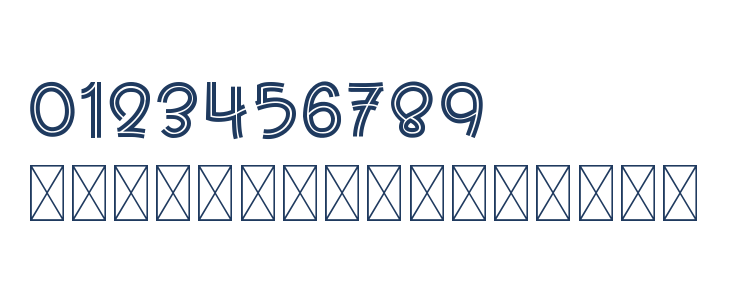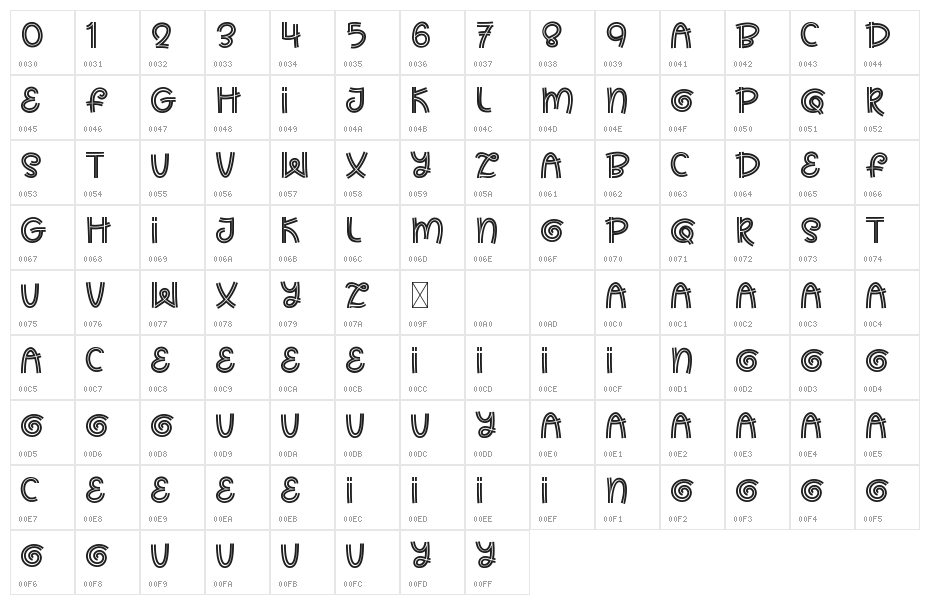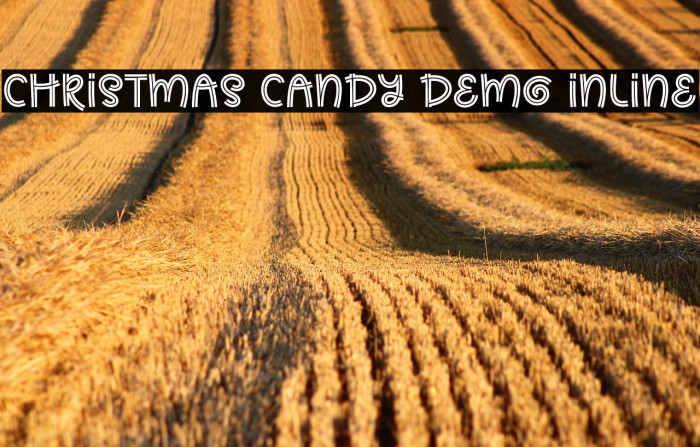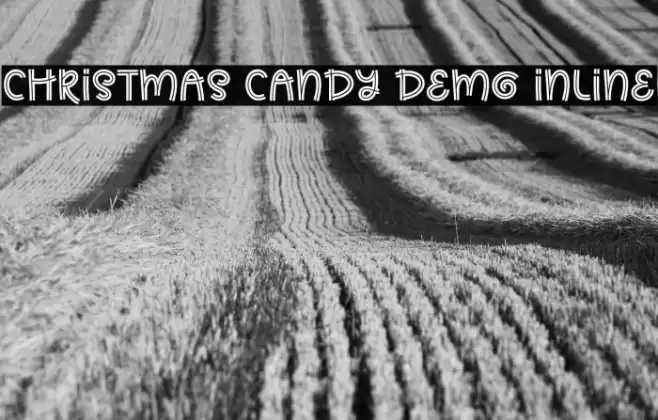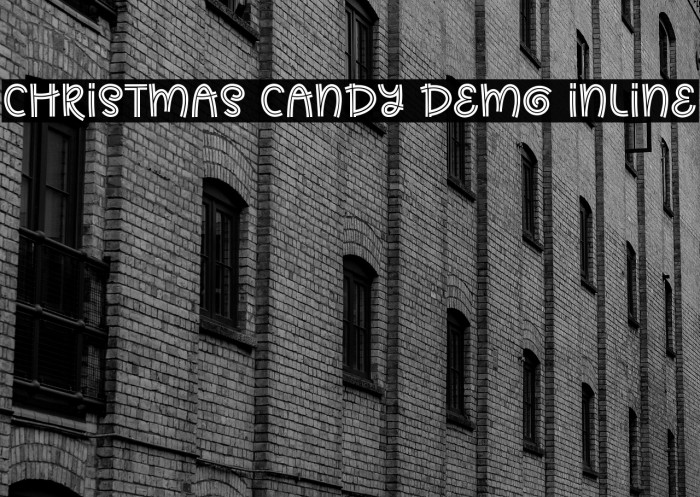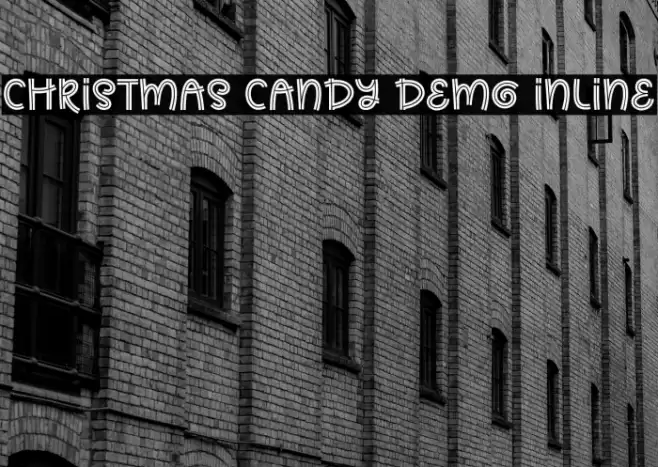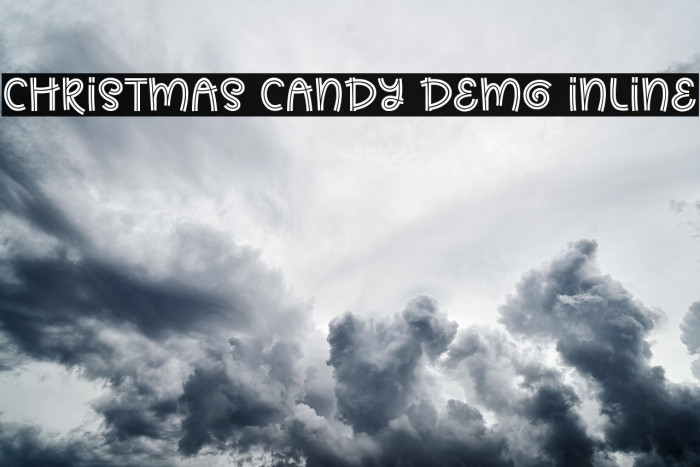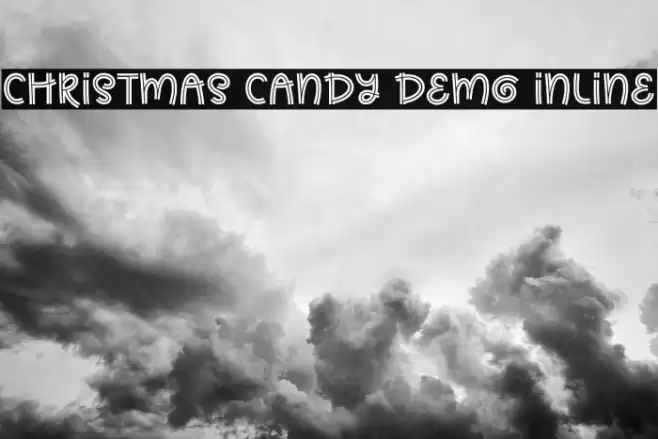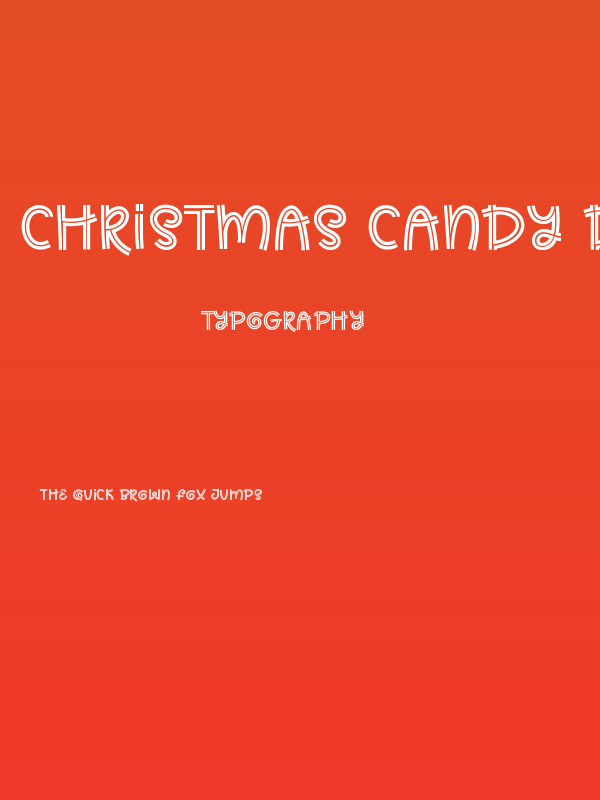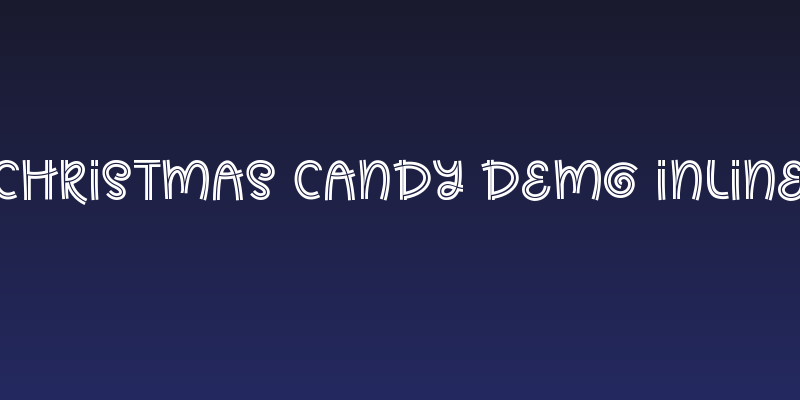
Christmas Candy Demo Inline Font
Christmas Candy Demo Inline Description
This playful and festive font features bold, rounded characters with a unique inline design that evokes a sense of whimsy and fun. The letters are characterized by their thick, consistent strokes and decorative inline elements that add a touch of holiday cheer. The font maintains a uniform width across all characters, providing a balanced and cohesive look. Its distinct style makes it ideal for capturing attention and conveying a joyful, celebratory mood. The numbers and special characters are designed with the same playful aesthetic, ensuring consistency throughout any text. This font is perfect for projects that require a touch of creativity and festivity, such as holiday cards, party invitations, and playful branding materials.
| Overall Style | Festive, Playful |
| Proposed Projects | Holiday cards, party invitations, playful branding, festive posters. |